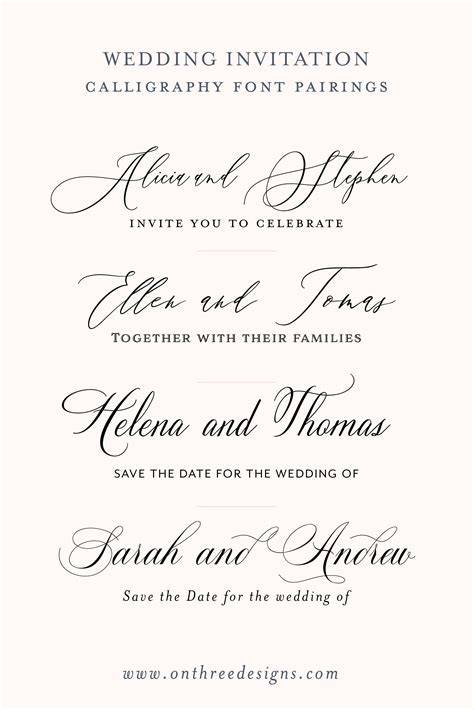
The Best Invitation Fonts Of 2023
When you’re planning a special event, the invitations are an important part of the process. But it’s not just the content of the invitation that matters; the font can also make a big impact on the overall look and feel. After all, the font is the first thing that your guests will see when they receive the invitation. The right font will help to set the tone and make the invitation look inviting, while an inappropriate font could make the invitation look sloppy.
If you’re stuck and don’t know which font to choose for your invitation, you’ve come to the right place. In this article, we’ll look at some of the best invitation fonts of 2023. We’ll discuss the pros and cons of each font and help you to choose the one that’s right for your event.
Sans Serif Fonts
Sans serif fonts are a great choice for invitations as they are modern and easy to read. Popular sans serif fonts include Arial, Helvetica, and Futura. These fonts are versatile and can be used for both formal and informal events. Plus, they can be used for both digital invitations (such as email or text) and printed invitations.
Script Fonts
Script fonts are a great choice if you want to make your invitation look more formal and elegant. Popular script fonts include Edwardian Script, Poetica, and Vivaldi. These fonts evoke a sense of sophistication and can make any invitation look more luxurious. However, script fonts can be difficult to read, so make sure to choose a font that is still legible. It’s also important to avoid using too many script fonts on the same invitation, as this can make it look cluttered and unprofessional.
Display Fonts
Display fonts are a great choice if you want to make your invitation stand out from the crowd. These fonts are often bold, unique, and eye-catching. Popular display fonts include Impact, Rockwell, and Bauhaus. While display fonts can be fun and attention-grabbing, it’s important to make sure that the font still looks professional and readable. Also, stick to only one display font per invitation, as too many can make it look overwhelming.
Choosing the right font for your invitation can be a challenge, but it’s important to take the time to find the right one. Consider the type of event you’re hosting, as well as the overall look and feel you want to convey. Sans serif fonts are great for modern events, while script and display fonts can help to make your invitation look more elegant and luxurious. With the right font, your invitation will look professional and inviting.